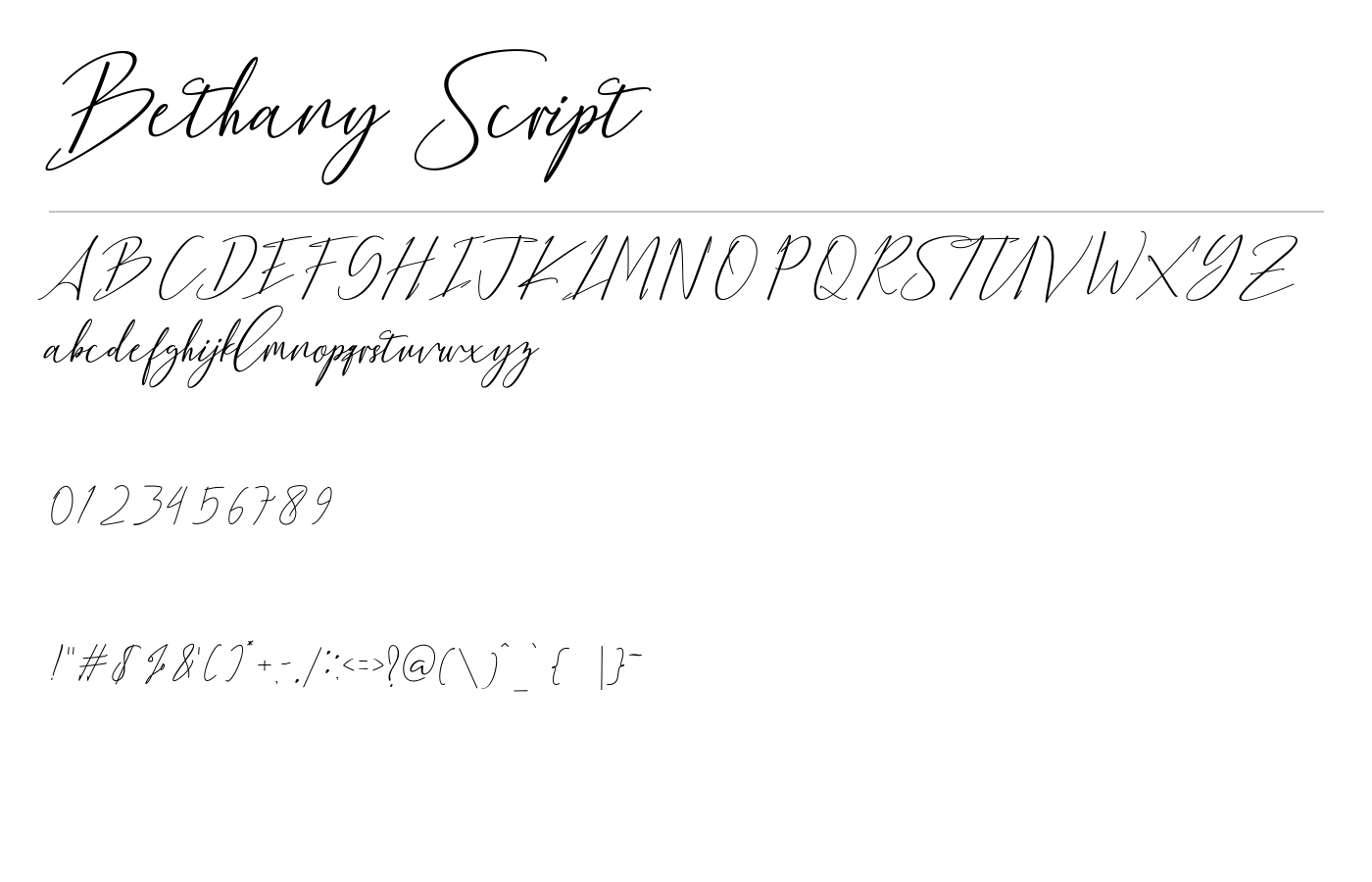
Bethany Script is a delicate, elegant handwritten font characterized by its fine, flowing strokes and slender letterforms. Its graceful, slightly slanted style makes it perfect for adding a personal, sophisticated touch to invitations, branding, and editorial designs. This font works best in contexts where a light, airy, and stylish script conveys warmth and refinement.
Bethany Script Font
About Bethany Script Font
| Designer | Munawir |